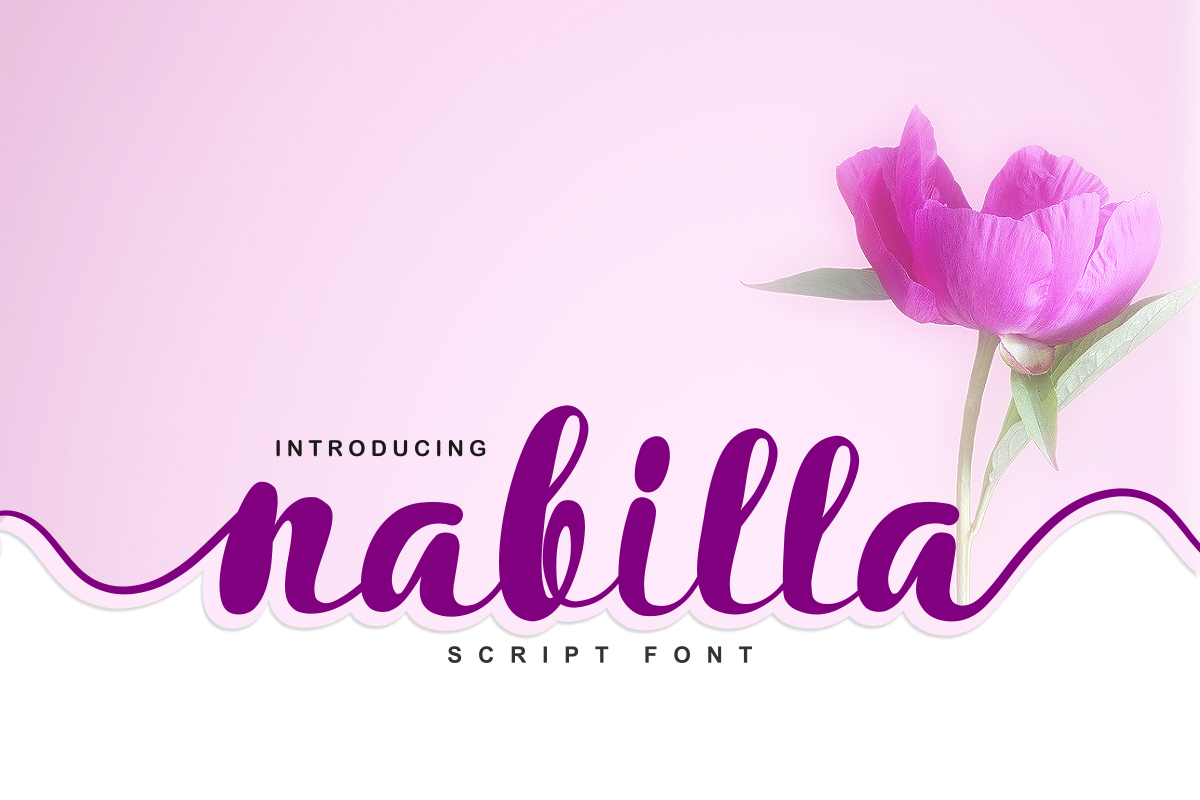
Nabilla Script
Nabilla
Introducing Nabilla Script Font!
Nabilla is a brand new script font. This font is perfectly suited for stationery, logos, t-shirt, paper, print design, website header, photo frame, flyer, music cover, poster, image slider and much more.